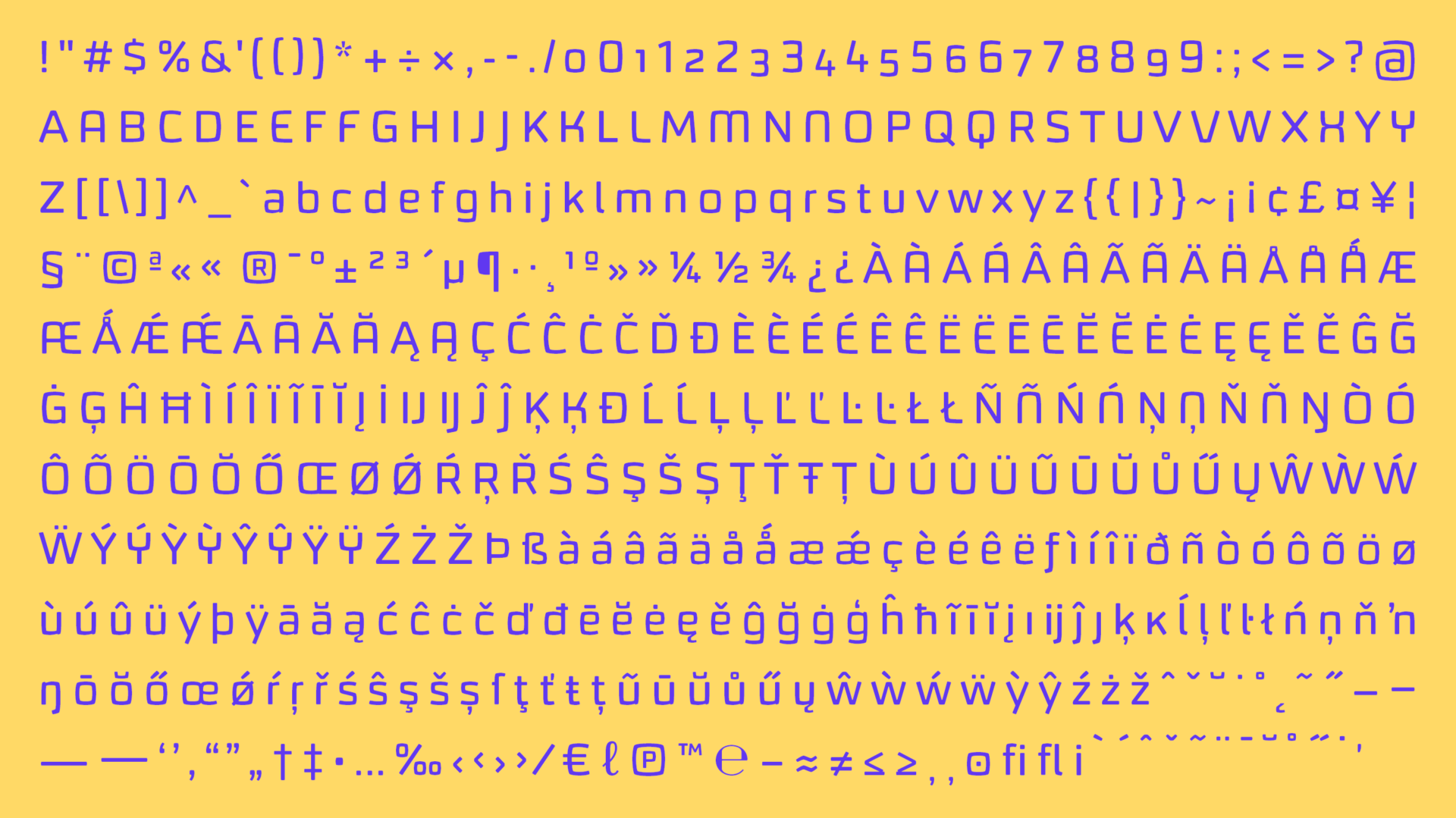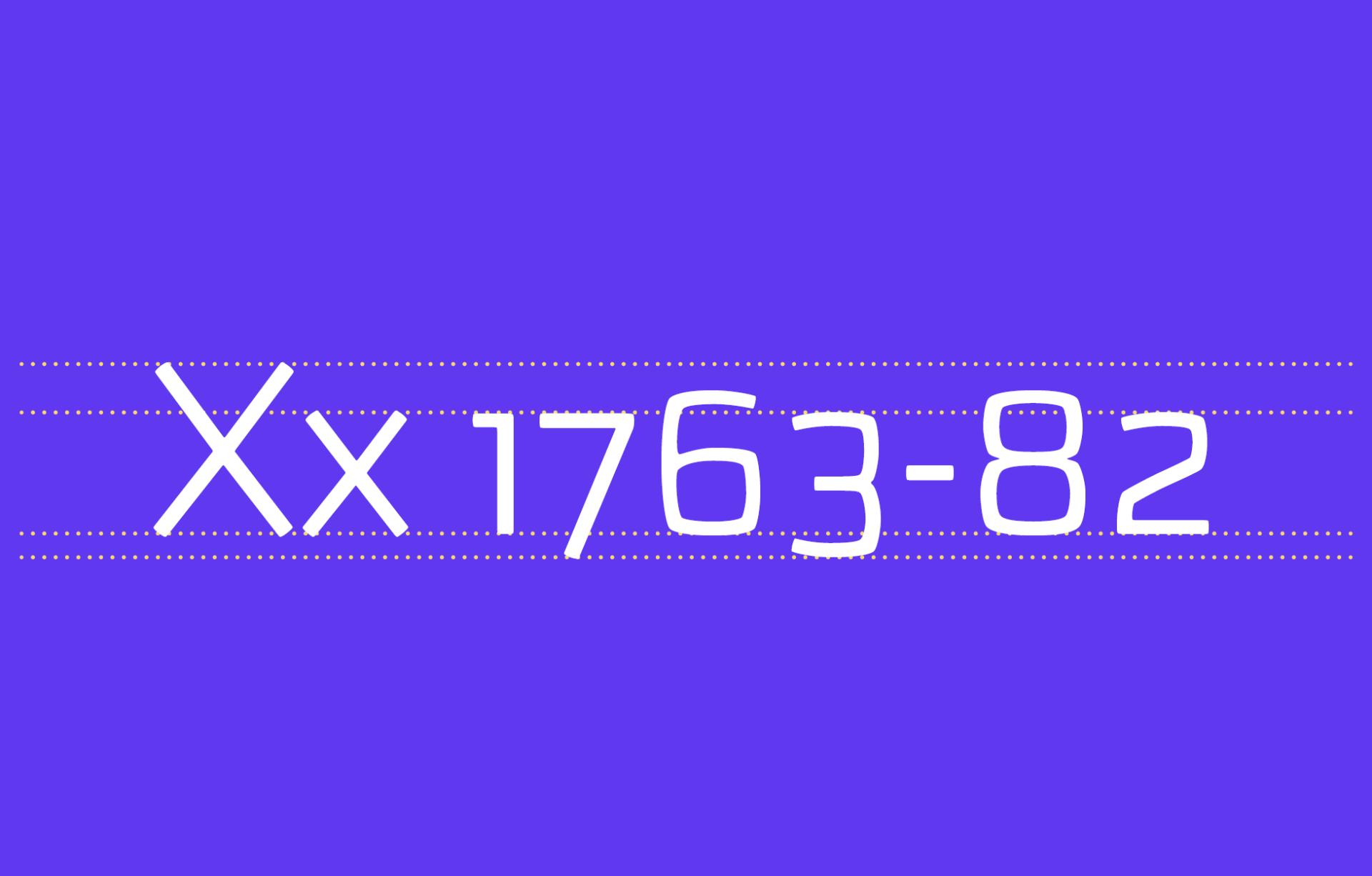
Taca Pro
Taca Pro Typeface
Squircled like
a 60s TV
Sincere and playful
Taca typeface was built around “squircles”: neither squares nor circles, but something in between.
Perfect for brands with sincerity and playfulness.
Taca font is Warm and trustworthy.
Stylish at display sizes, highly readable at small sizes
Taca Font, a Workhorse
Taca’s rounded crotches and terminals and subtle bending strokes give it an organic feel, while its sharp turns and cheeky intersections make it playful.
“It has both roughness and warmth, it is sturdy and easy to read […] with style and confidence.”
Geir Goosen
Graphic designer and teacher, Bergen
“TACA is my type”
Michelle Jean Castro
Obra editora, Brasil
“Even though I’m a photographer, I rather like to see type on covers than photographs, and for sure Taca is one of my favorites!”
Leonardo Finotti
Architectural Photographer, Brasil